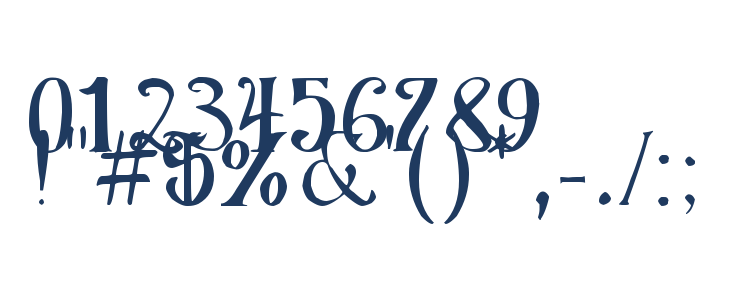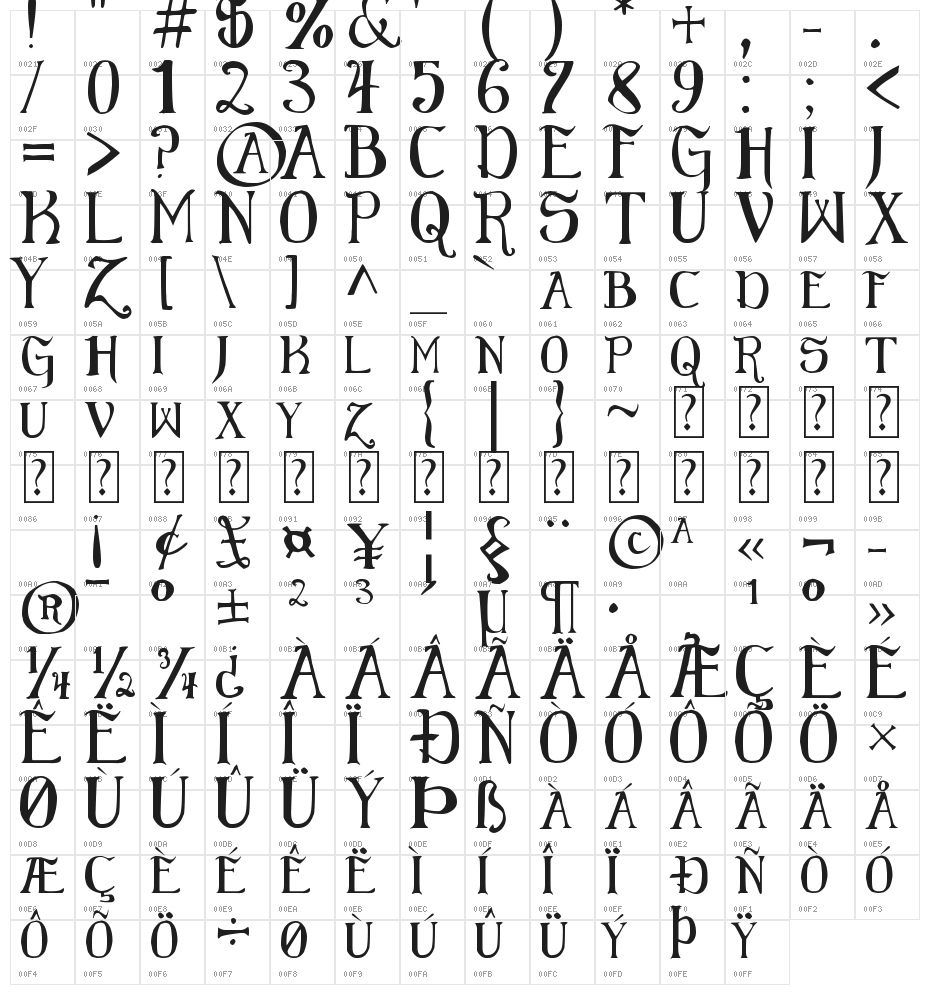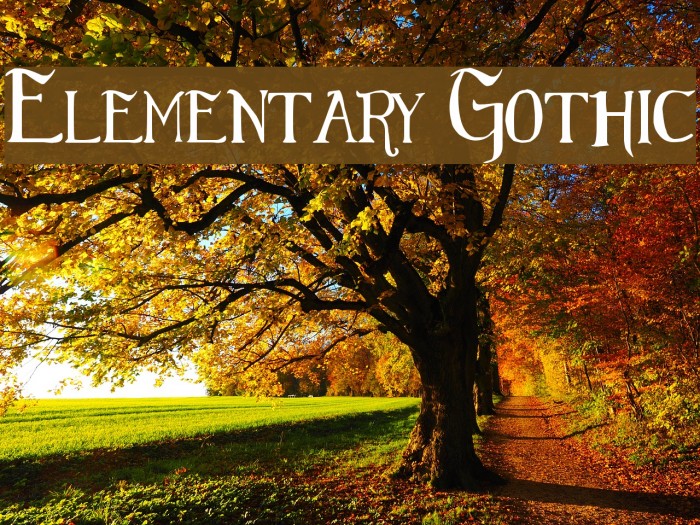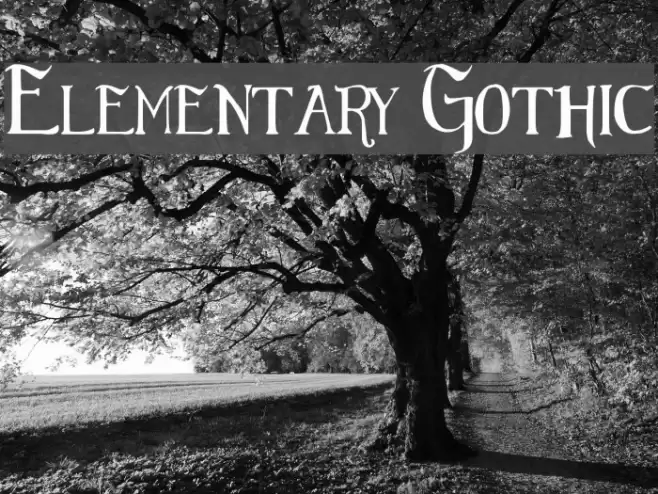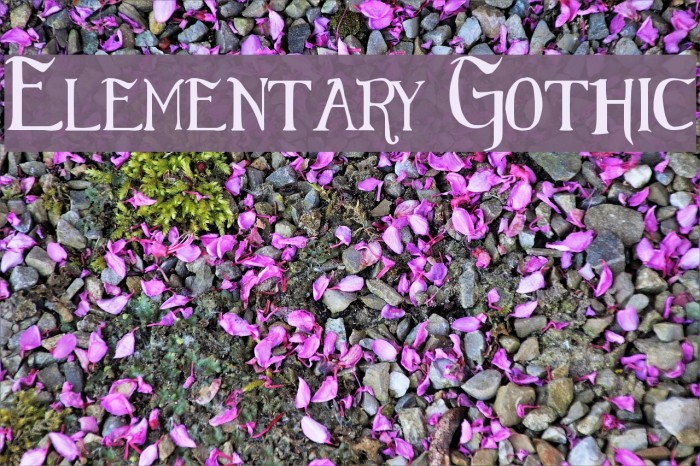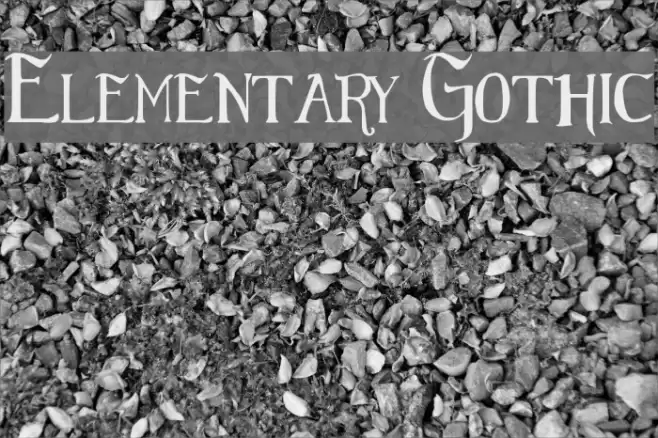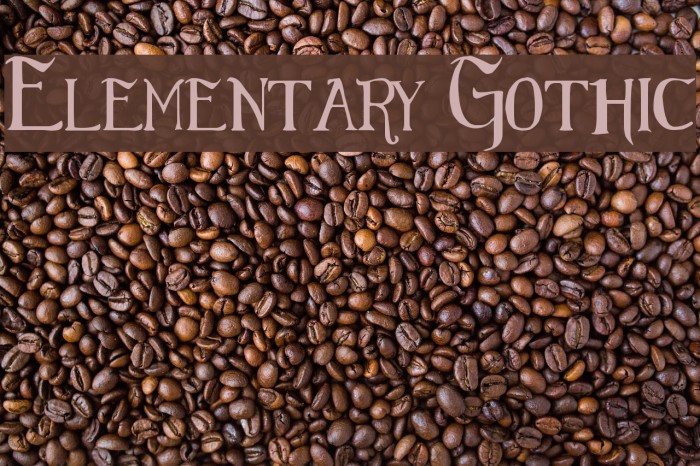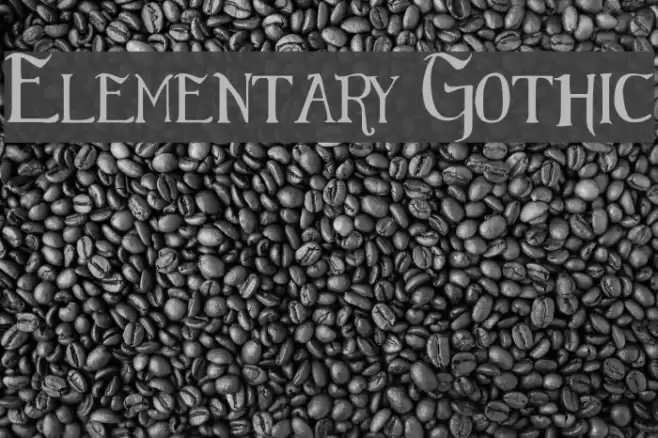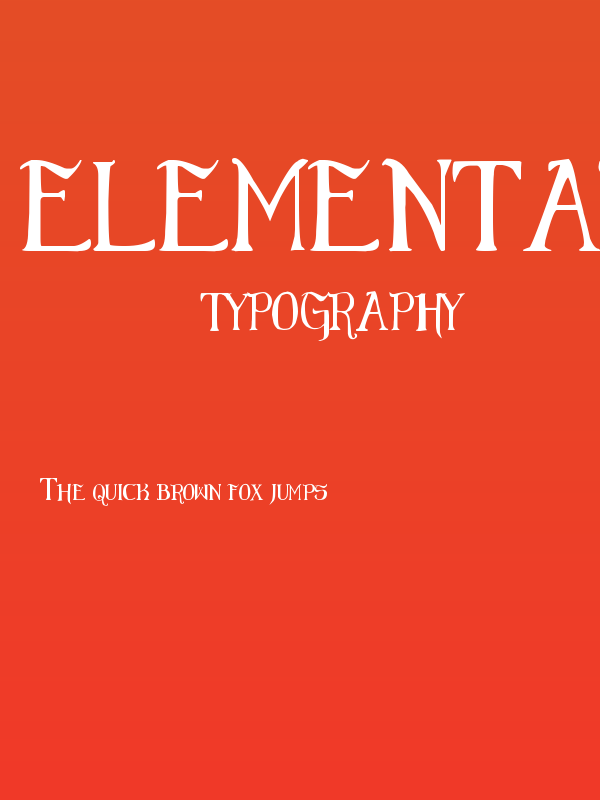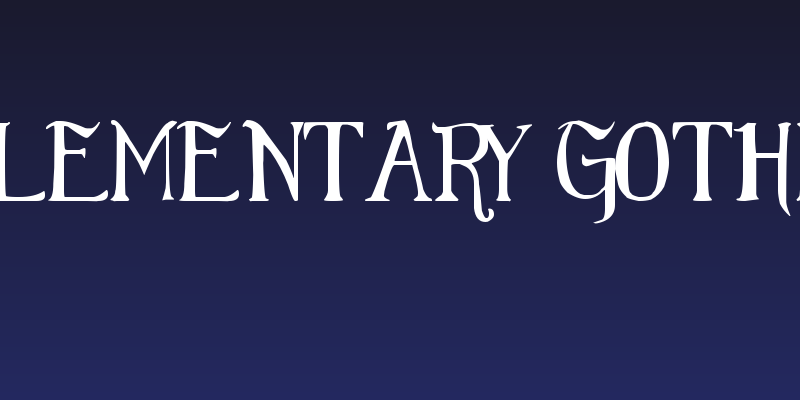
Elementary Gothic Font
Elementary Gothic Description
This font features a distinct Gothic style with sharp, angular lines and intricate detailing. The uppercase letters are bold and commanding, with unique flourishes that add a touch of elegance and complexity. The lowercase letters maintain the same stylistic elements, ensuring consistency throughout the typeface. Numbers are equally stylized, with a bold presence that complements the overall design. Special characters are crafted with the same attention to detail, making them suitable for decorative purposes. The font's design is reminiscent of medieval script, offering a historical and artistic flair.
| Use Case | Headlines, Logos, Decorative text |
| Proposed Projects | Ideal for projects requiring a historical or medieval aesthetic, such as book covers, posters, or themed event invitations. |